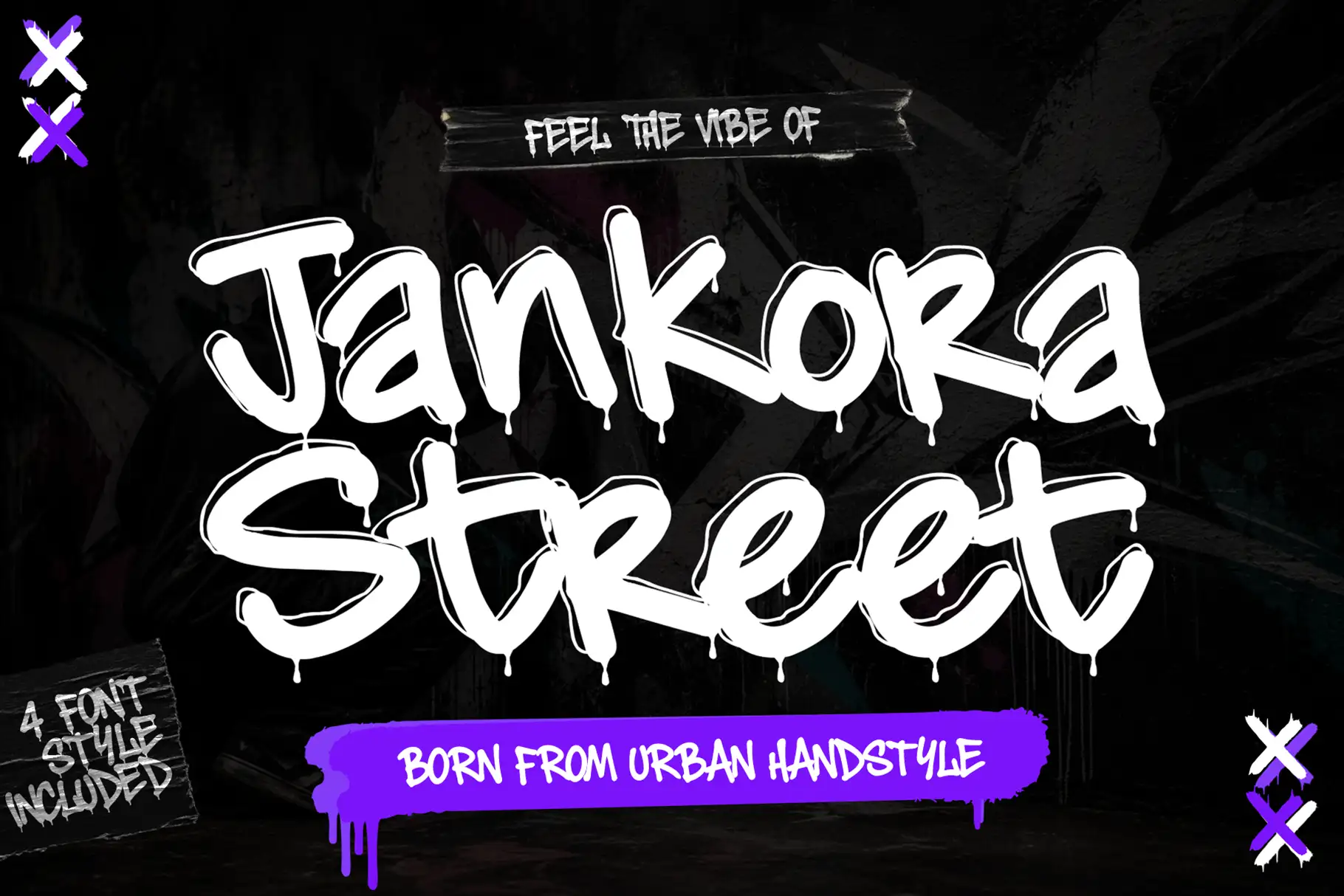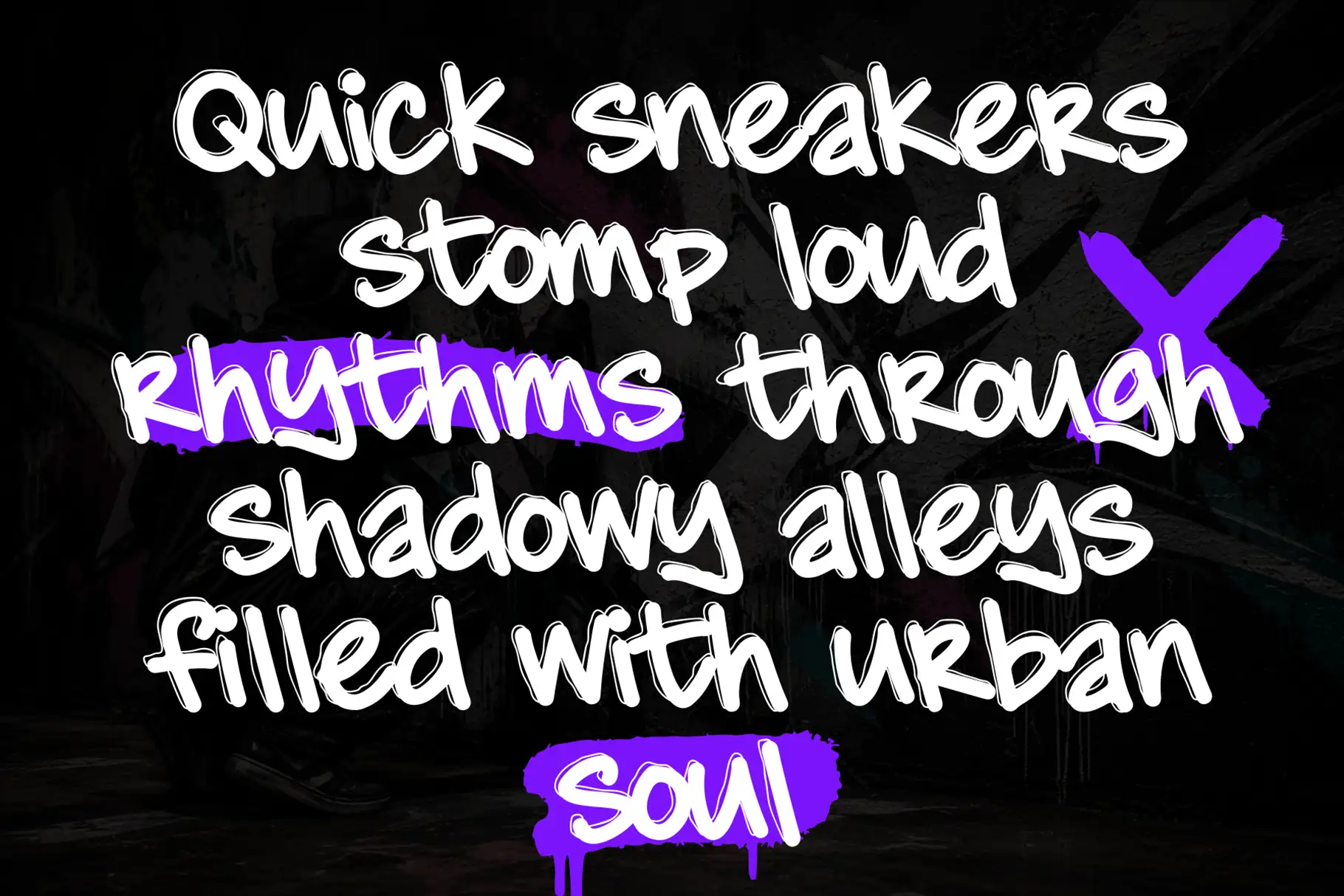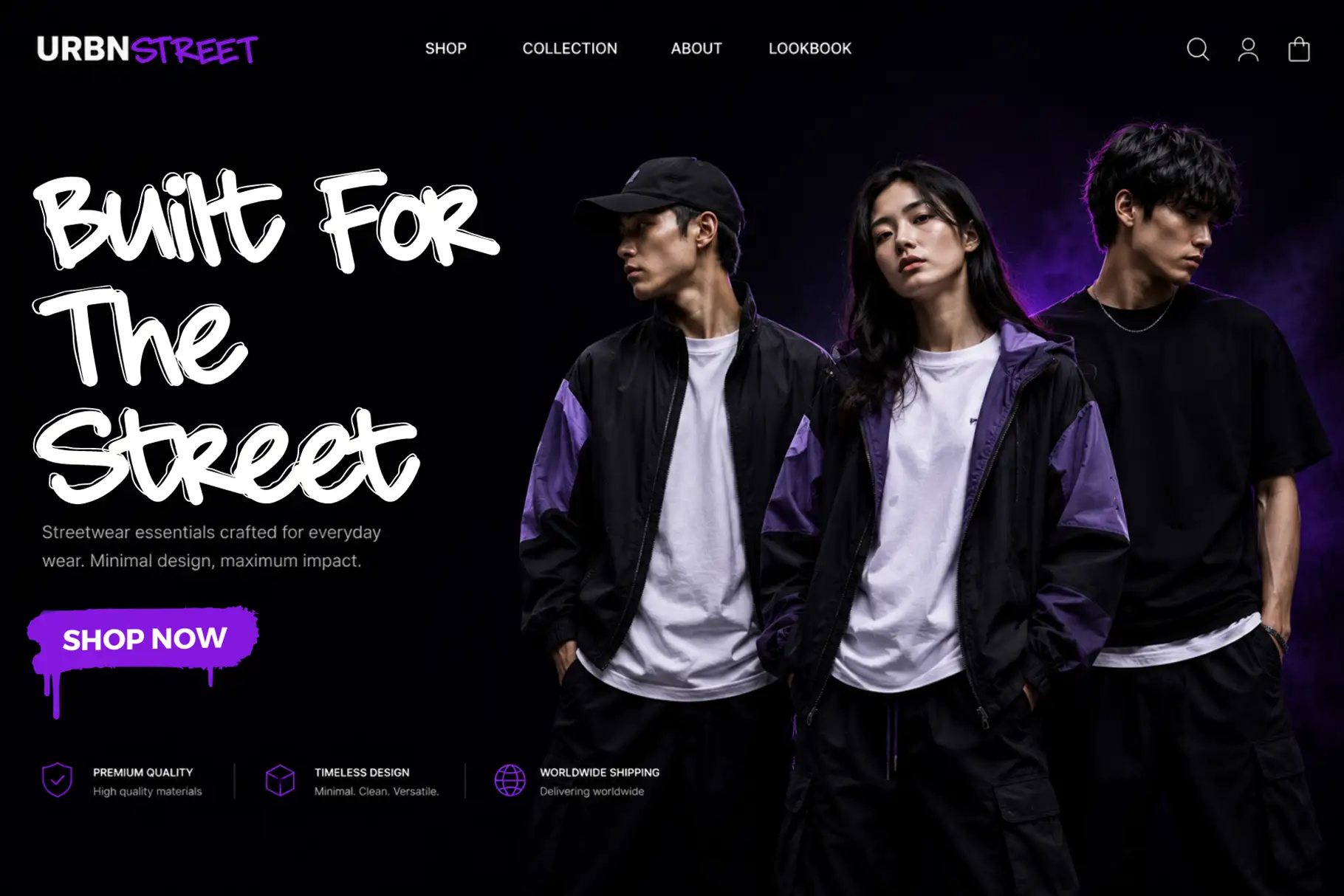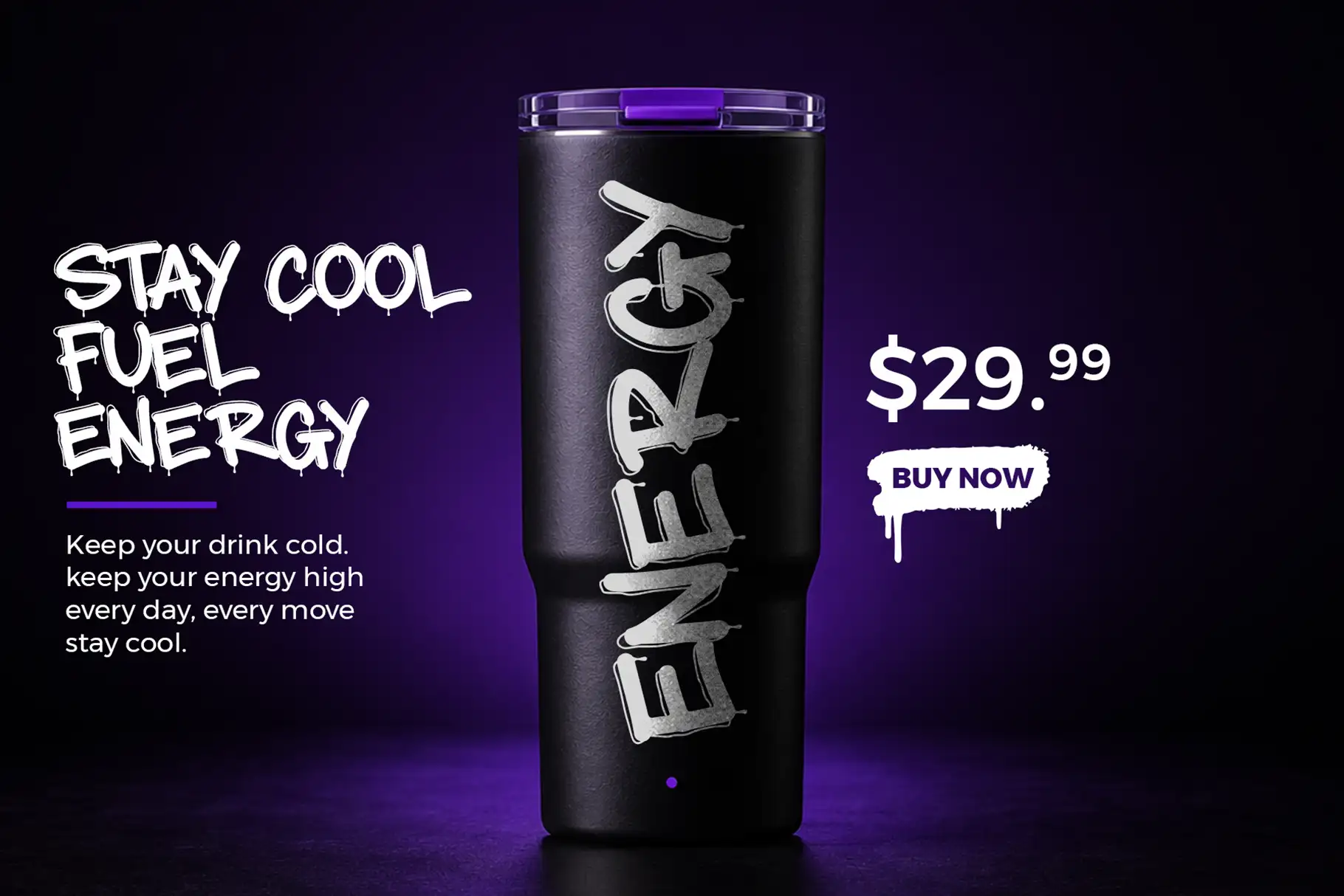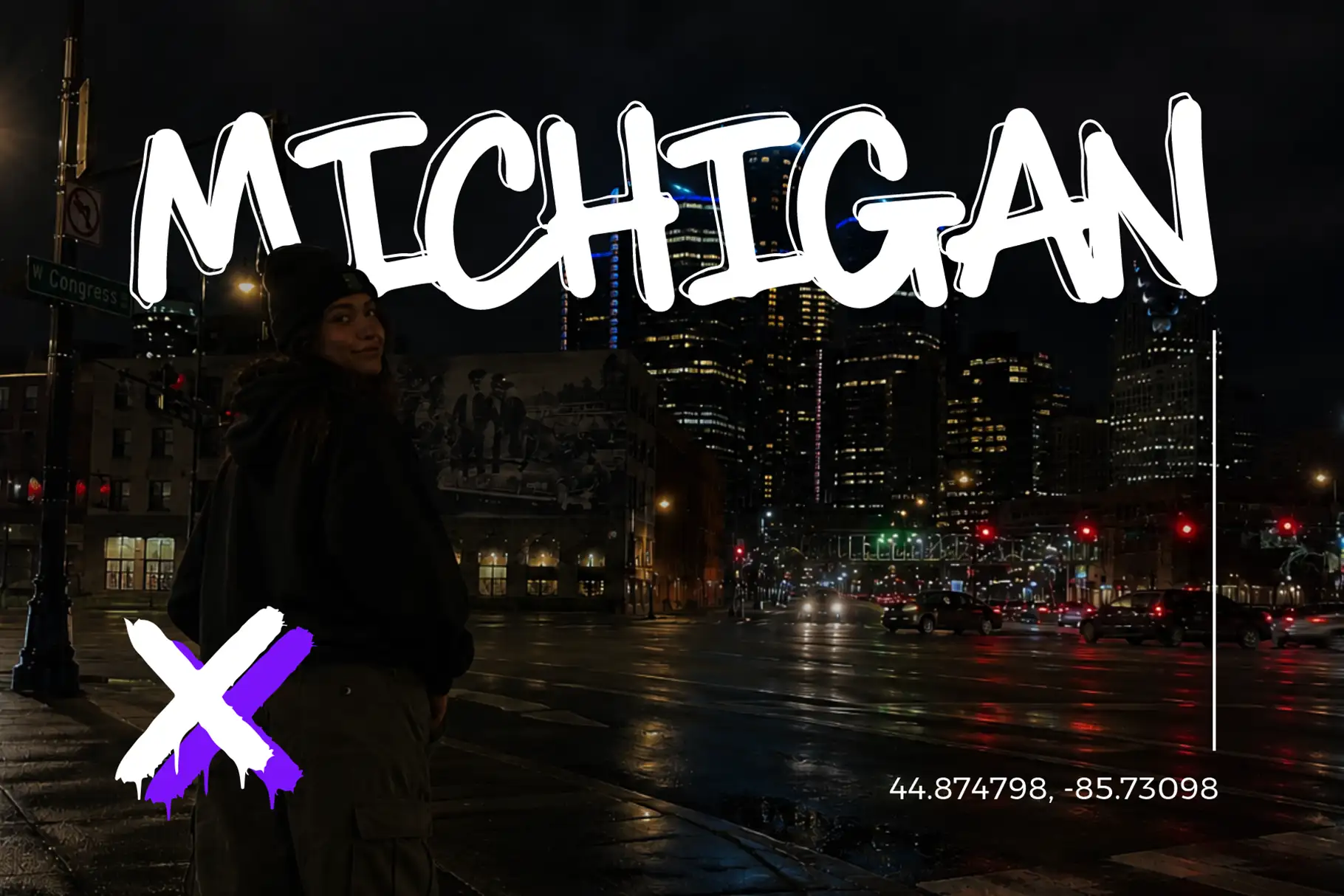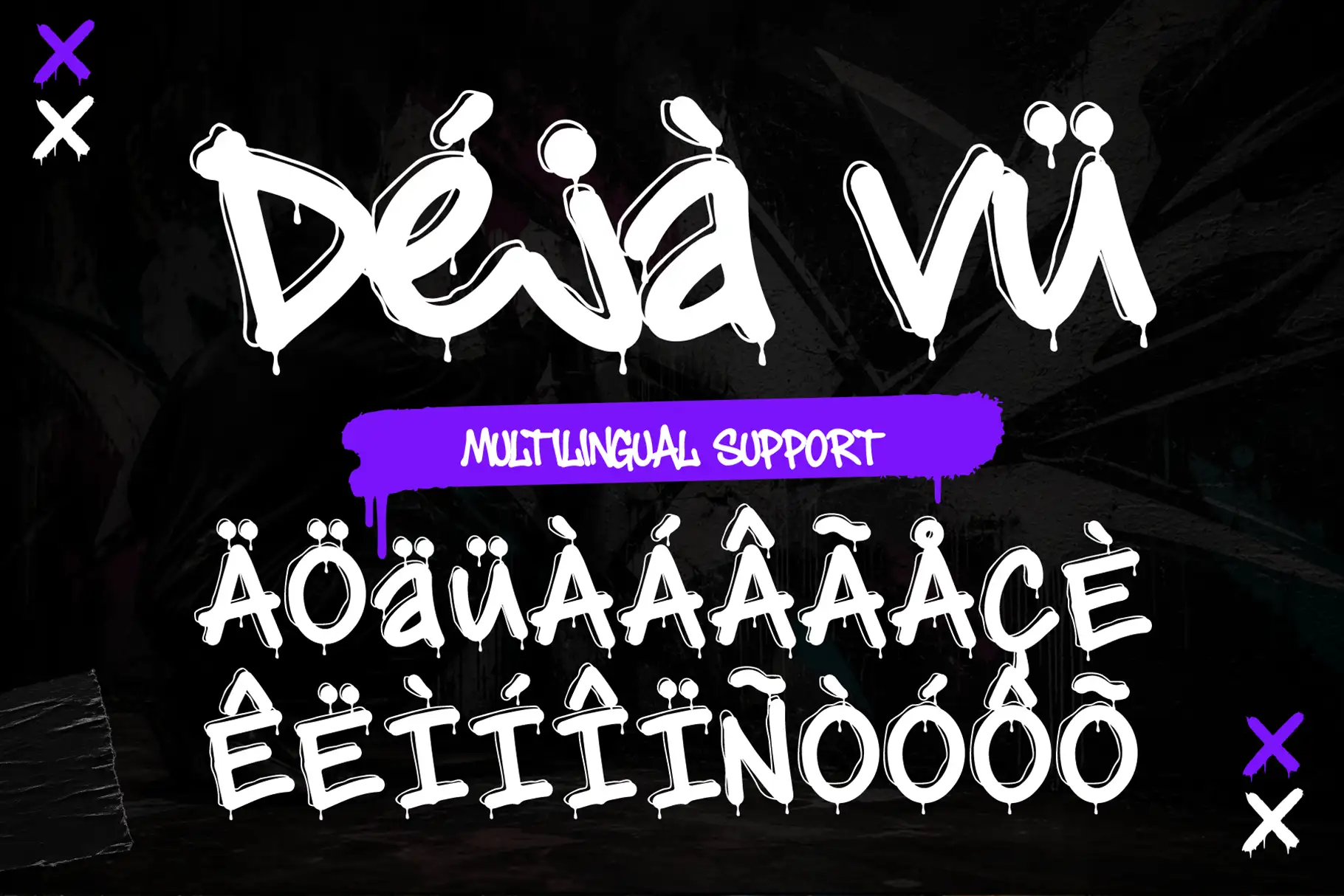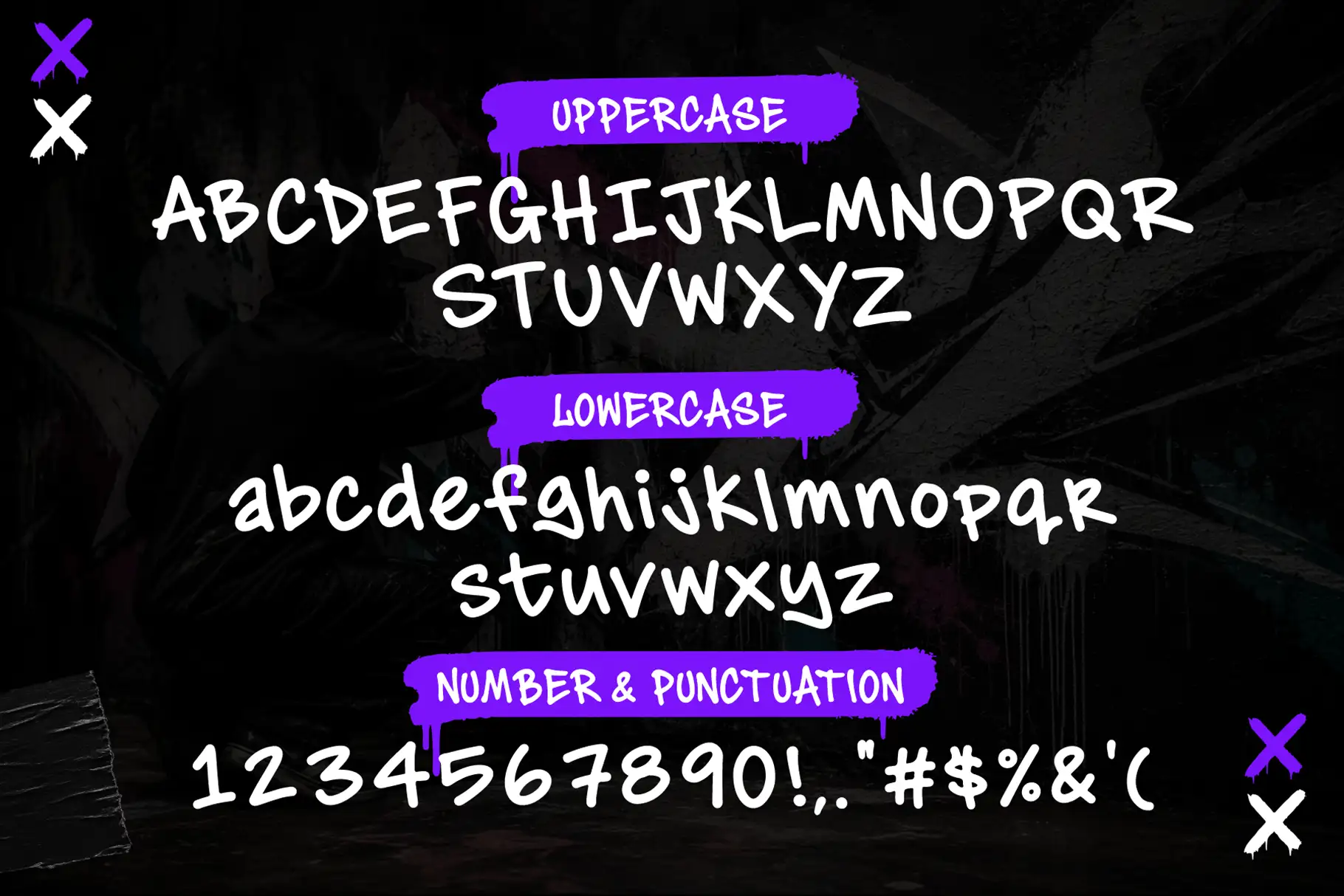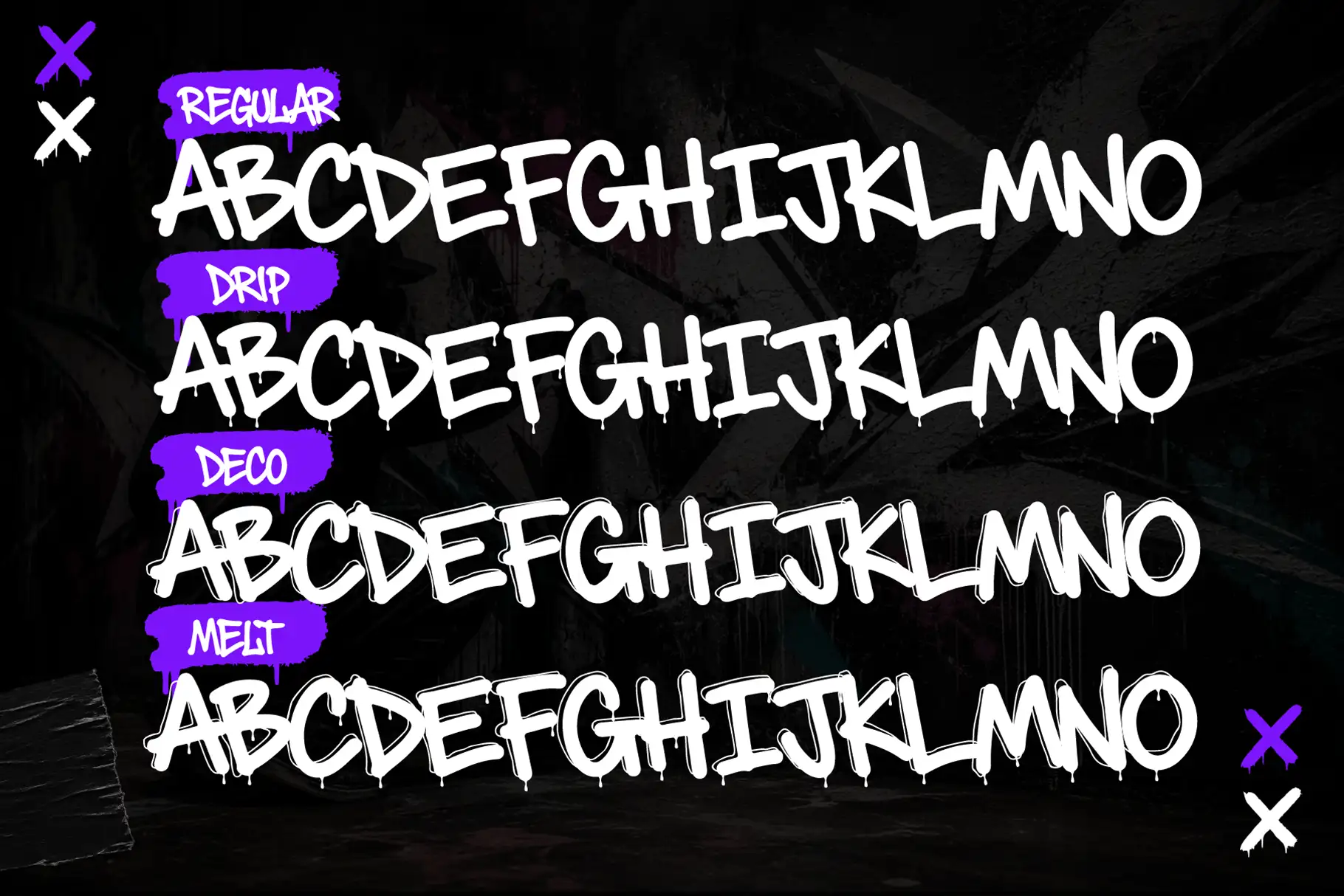
Jankora Street – Urban Handstyle Font for Street-Driven Visuals
Jankora Street is an Urban Handstyle Font created for designers who want type that feels raw, bold, expressive, and ready for the street. Built with an urban display appearance, this font package gives your typography a strong handstyle personality without losing readability in titles and large text compositions.
This is the kind of font that works when your design needs attitude. Use it for streetwear graphics, music posters, event flyers, digital artwork, brand visuals, packaging concepts, social media content, and bold merchandise designs. Jankora Street brings a confident handwritten energy that feels expressive and graphic, making it a strong choice for projects that need more than a clean, neutral typeface.
The package includes three font styles: Jankora Street, Jankora Street Drip, and Jankora Street Deco. Each style gives you a different way to shape the mood of your design while keeping the same urban handstyle direction. Use the main style for strong headline work, the drip style when you want a more expressive street-art feel, and the deco style when your layout needs extra visual character.
Jankora Street carries the look of urban lettering, handstyle marks, and street-inspired display typography. Its personality feels bold, direct, and expressive, with a visual rhythm that works especially well in headline-focused layouts.
The font is designed for projects where typography becomes the main visual element. It does not sit quietly in the background. It gives your words presence. That makes it useful for designers creating artwork that needs to feel energetic, youthful, rebellious, or culture-driven.
Because clear readability for titles and large text compositions is included in the provided features, Jankora Street is best used where the words need to be noticed quickly. Think main poster titles, apparel statements, album-style graphics, YouTube thumbnails, event promotions, packaging names, and streetwear branding pieces.
The three-style package also gives you practical flexibility. You can build a complete visual direction from one font family: one style for the primary title, one for emphasis, and one for decorative impact. This helps designers create stronger hierarchy without moving too far away from the core identity of the font.
Best Use Cases for This Urban Handstyle Font
Jankora Street is made for bold creative work across print and digital projects. Its urban display appearance makes it a strong fit for designs that need an expressive and memorable typographic voice.
Use Jankora Street for streetwear graphics, oversized t-shirt statements, hoodie prints, skate-inspired branding, music visuals, event flyers, gig posters, sports-inspired graphics, digital covers, YouTube thumbnails, social media posts, stickers, packaging labels, and promotional artwork.
For brand owners and creative studios, this font can help create a distinctive visual tone for projects that need to feel independent, expressive, and modern. For content creators, it can bring stronger personality to thumbnails, reels graphics, short-form video covers, and quote-style visuals. For crafters and digital product sellers, it can work well for printable art, merch layouts, and bold design assets.
Jankora Street is especially useful when the design needs a street-culture feel but still requires readable title typography. It can make a simple phrase feel more designed, more energetic, and more visually connected to urban creative culture.
Key Features
Uppercase characters included
Lowercase characters included
Numbers support
Punctuation and symbols included
Multilingual support
Three font styles in one package
Urban display appearance
Suitable for print and digital projects
Clear readability for titles and large text compositions
Designers love fonts that make a layout feel finished faster. Jankora Street helps by giving strong typographic character from the first word. Instead of relying on heavy effects or complicated compositions, you can use the font itself as the visual anchor.
The three included styles make it useful for building variety inside one design system. You can create a main title with Jankora Street, add extra attitude with Jankora Street Drip, and bring decorative detail with Jankora Street Deco. This is practical for posters, apparel collections, merch drops, music graphics, or social campaigns where several visuals need to feel connected.